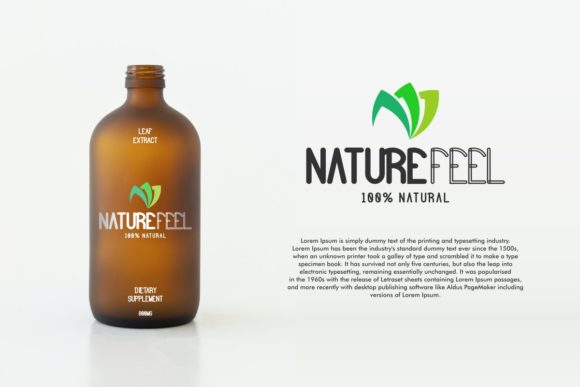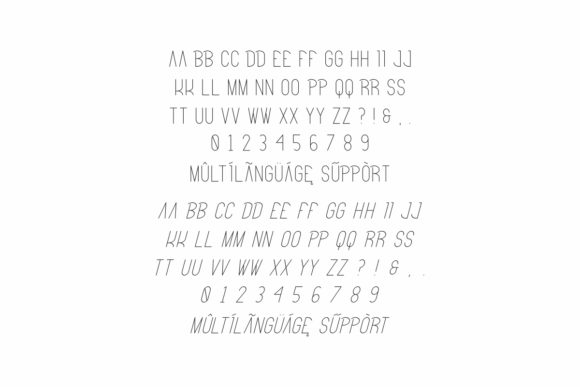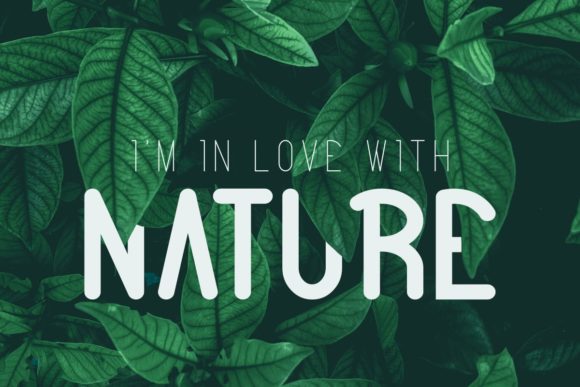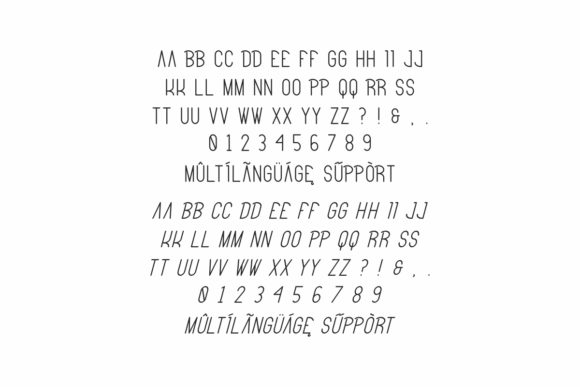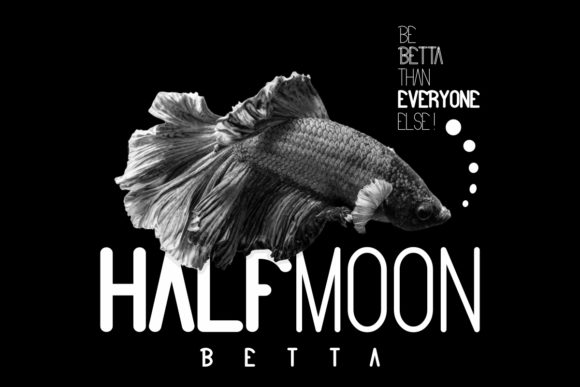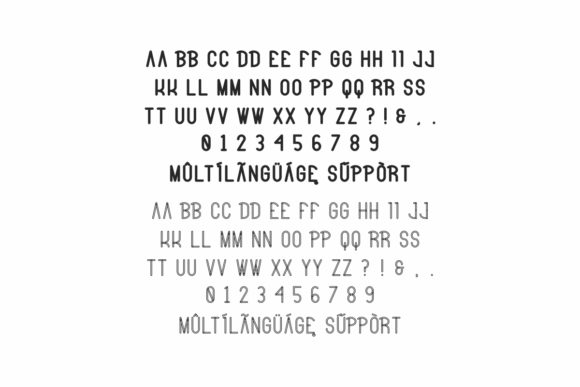
Bitter Space Font: Elevate Your Designs with a Casual and Trendy Sans Serif
In the world of typography, fonts play a crucial role in conveying the tone and personality of a design. For designers and crafters looking to add a touch of modernity and flair to their creative projects, the Bitter Space font is an excellent choice. This casual and trendy sans serif font is designed to make your designs stand out, and in this article, we’ll explore its features, benefits, and uses.
What is Bitter Space Font?
Bitter Space is a sans serif font that exudes a sense of casualness and trendiness. Its clean lines, rounded edges, and open curves make it an approachable and friendly font, perfect for designs that require a touch of personality. The font’s simplicity and legibility ensure that it remains readable even at smaller sizes, making it versatile for various applications.
Key Features of Bitter Space Font
- Clean and Modern Design: Bitter Space boasts a clean and modern design that is perfect for contemporary designs.
- Sans Serif: The font’s sans serif design makes it highly legible and suitable for digital and print applications.
- Casual and Trendy: Bitter Space has a casual and trendy vibe that adds a touch of personality to any design.
- Versatile: The font is versatile and can be used for various design projects, from branding and advertising to packaging and web design.
Benefits of Using Bitter Space Font
So, why should designers and crafters choose Bitter Space font for their projects? Here are some benefits:
- Enhances Readability: Bitter Space font is designed to be highly legible, making it perfect for designs that require a clear and concise message.
- Adds Personality: The font’s casual and trendy vibe adds a touch of personality to any design, making it stand out from the crowd.
- Versatile: Bitter Space font can be used for various design projects, from digital to print applications.
- Easy to Pair: The font is easy to pair with other fonts, making it a great addition to any design project.
Use Cases for Bitter Space Font
Bitter Space font is suitable for various design projects, including:
- Branding and Advertising: Use Bitter Space font to create modern and eye-catching logos, posters, and advertisements.
- Packaging Design: The font is perfect for packaging design, adding a touch of personality to product labels and packaging.
- Web Design: Bitter Space font is suitable for web design, making it perfect for website headers, titles, and body text.
- Social Media Graphics: Use the font to create engaging social media graphics, such as Facebook posts, Instagram stories, and Twitter headers.
Tips for Using Bitter Space Font
Here are some tips for using Bitter Space font effectively:
- Use it as a Headline Font: Bitter Space font is perfect for headlines, titles, and captions.
- Pair it with Other Fonts: Experiment with pairing Bitter Space font with other fonts to create a unique and visually appealing design.
- Adjust Font Sizes: Adjust font sizes to create visual hierarchy and emphasize important information.
- Experiment with Colors: Try different colors to find the perfect match for your design.
In conclusion, Bitter Space font is a casual and trendy sans serif font that can elevate your designs and make them stand out. Its clean lines, rounded edges, and open curves make it an approachable and friendly font, perfect for designs that require a touch of personality. With its versatility, readability, and ease of use, Bitter Space font is an excellent choice for designers and crafters looking to add a modern touch to their creative projects.